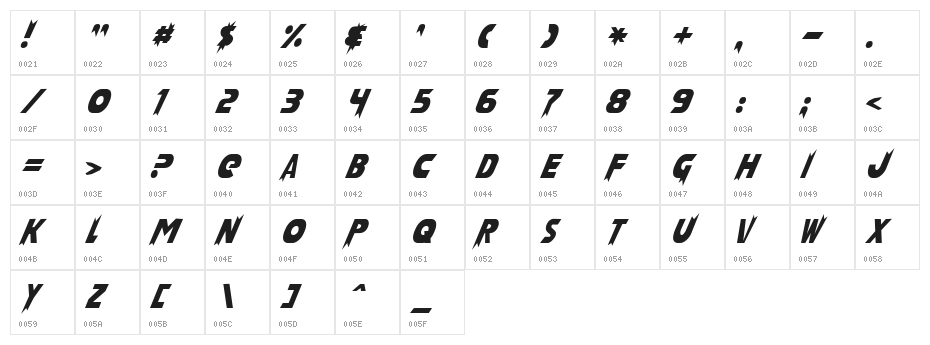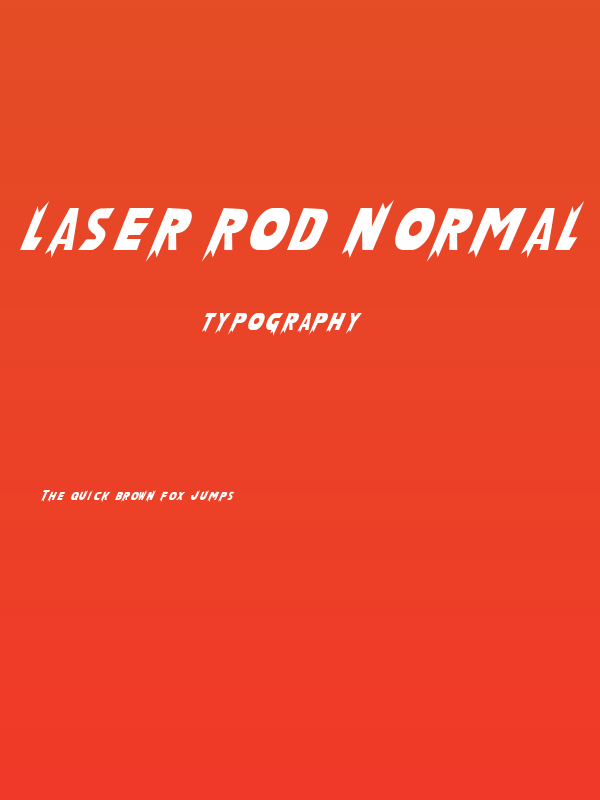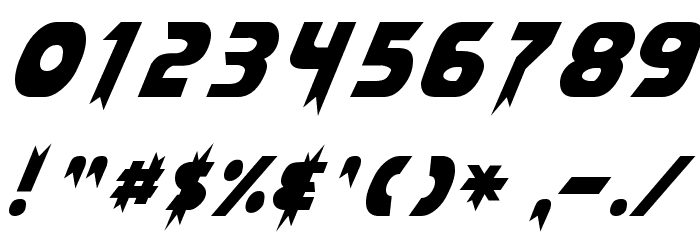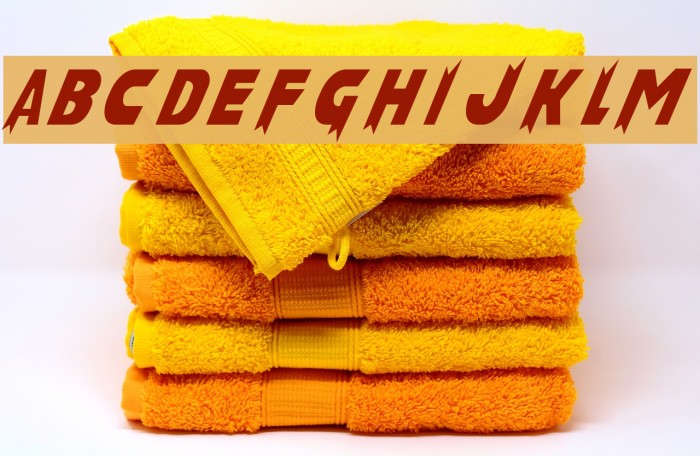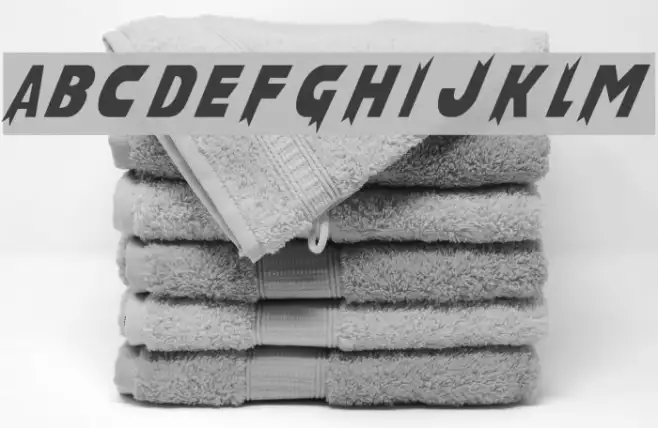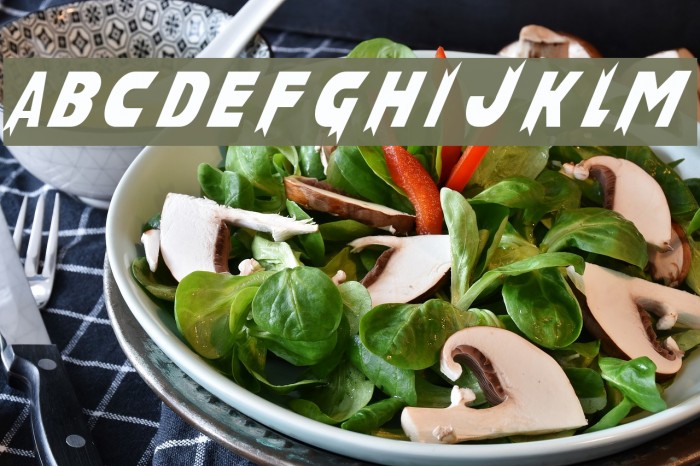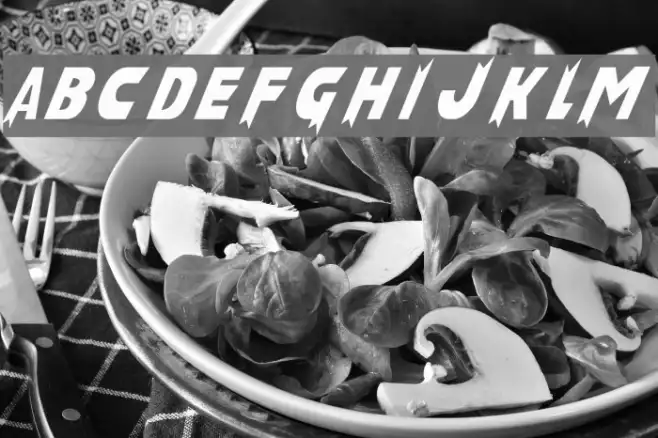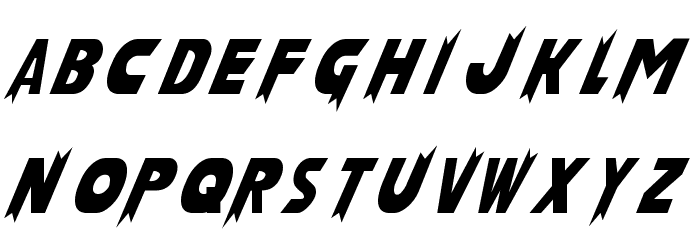
Laser Rod Normal Font
Laser Rod Normal Description
This font features a bold, dynamic style with sharp, angular edges that give it a futuristic and energetic appearance. The letters are slightly slanted, adding a sense of motion and speed. The design incorporates unique cut-out shapes within the characters, enhancing its modern and edgy look. The font is highly legible, with consistent stroke thickness that maintains clarity even at smaller sizes. Its distinctive style makes it ideal for projects that require a strong visual impact.
| Proposed Projects | Ideal for sci-fi themed designs, video game titles, sports branding, and dynamic posters. |